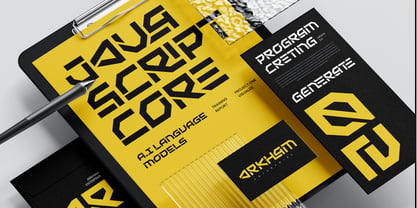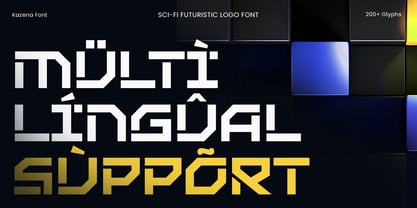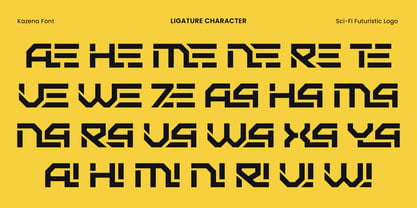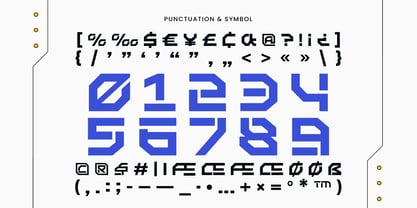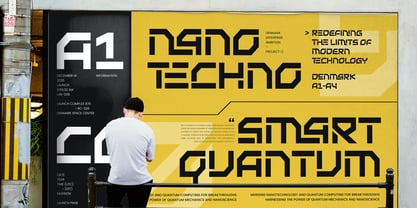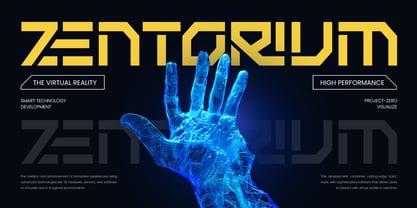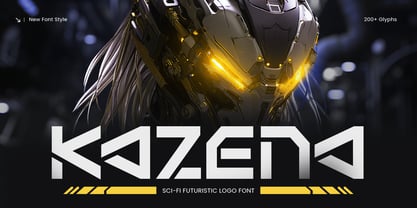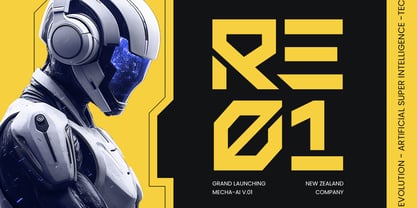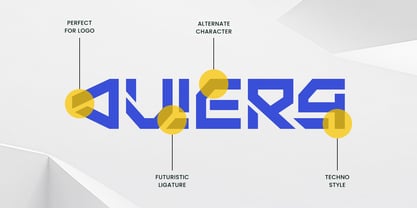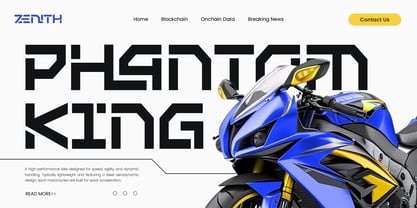
Kazena is a sci-fi futuristic logo font that embodies innovation, progress, and modern digital aesthetics. Built with precision geometry and clean lines, it’s ideal for brands, games, and creative projects that embrace technology and the future.
Inspired by the philosophy of continuous improvement, Kazena reflects speed, clarity, and innovation. Its sharp yet balanced letterforms make it perfect for tech branding, esports visuals, digital campaigns, and interface design — ensuring every composition feels advanced and professional.
Whether used for logos, posters, or product packaging, Kazena brings a futuristic edge that enhances modern visual storytelling. It’s the perfect fusion of sci-fi energy and minimalist design.
Sharp futuristic design for tech and gaming brands
Perfect for logos, posters, and digital interfaces
Clean geometric shapes for a modern aesthetic
Excellent readability across both print and web
Includes uppercase, lowercase, numerals, and punctuation
OpenType features for advanced typographic control
Design the future with Kazena – the ultimate sci-fi futuristic logo font for modern, digital, and high-tech branding. ✨
Kazena